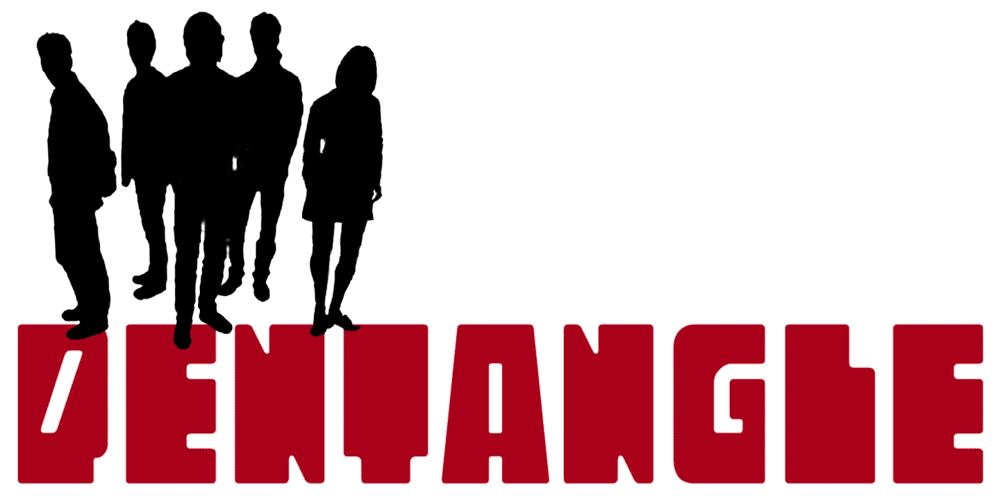
Pentangle
Pentangle font
Pentangle Font Family was designed by published by K-Type. Pentangle contains 2 styles and family package options. Pentangle is a complete font freely based on the eight characters used for the title of the 1967 folk/jazz/rock album.